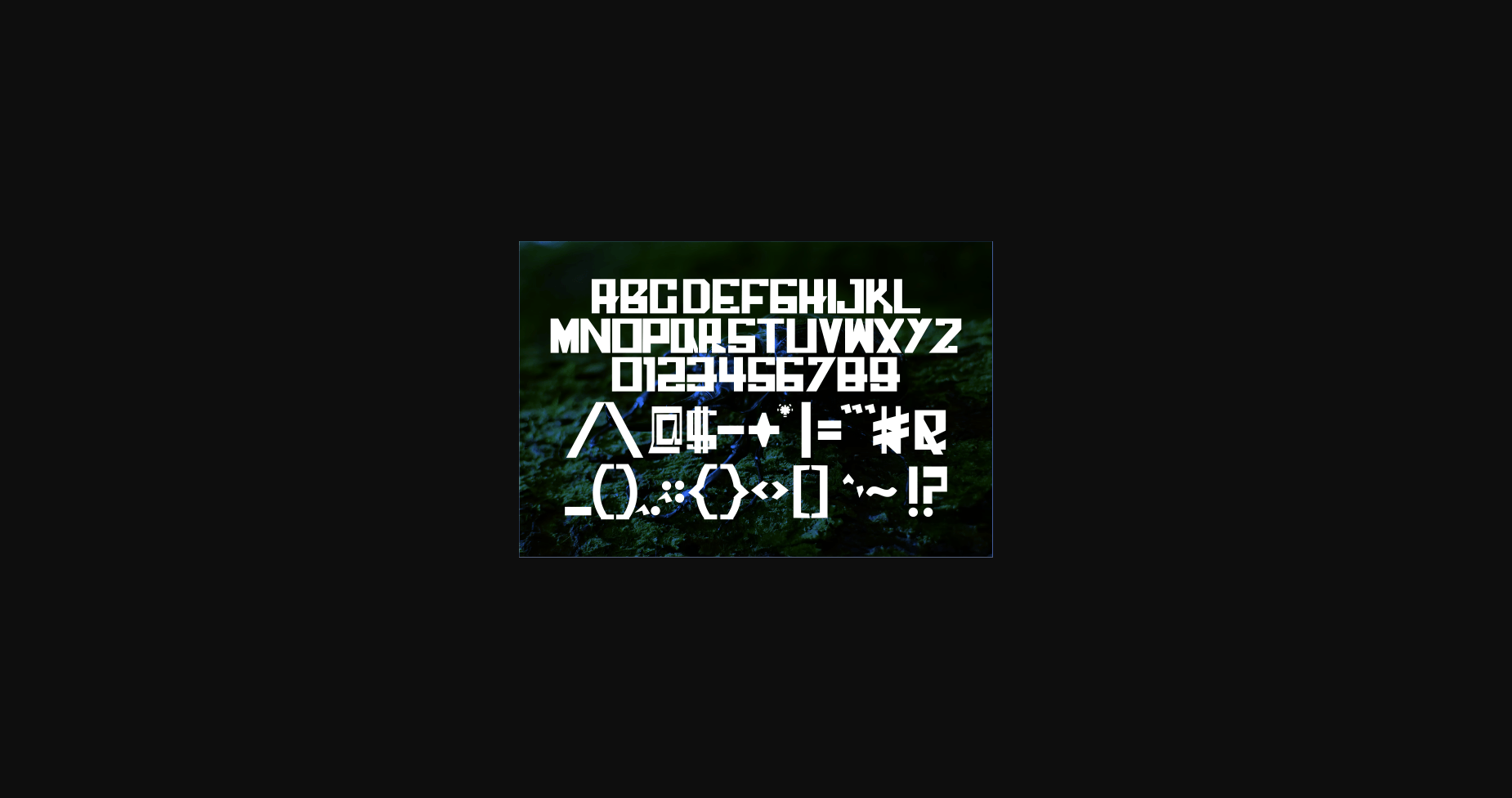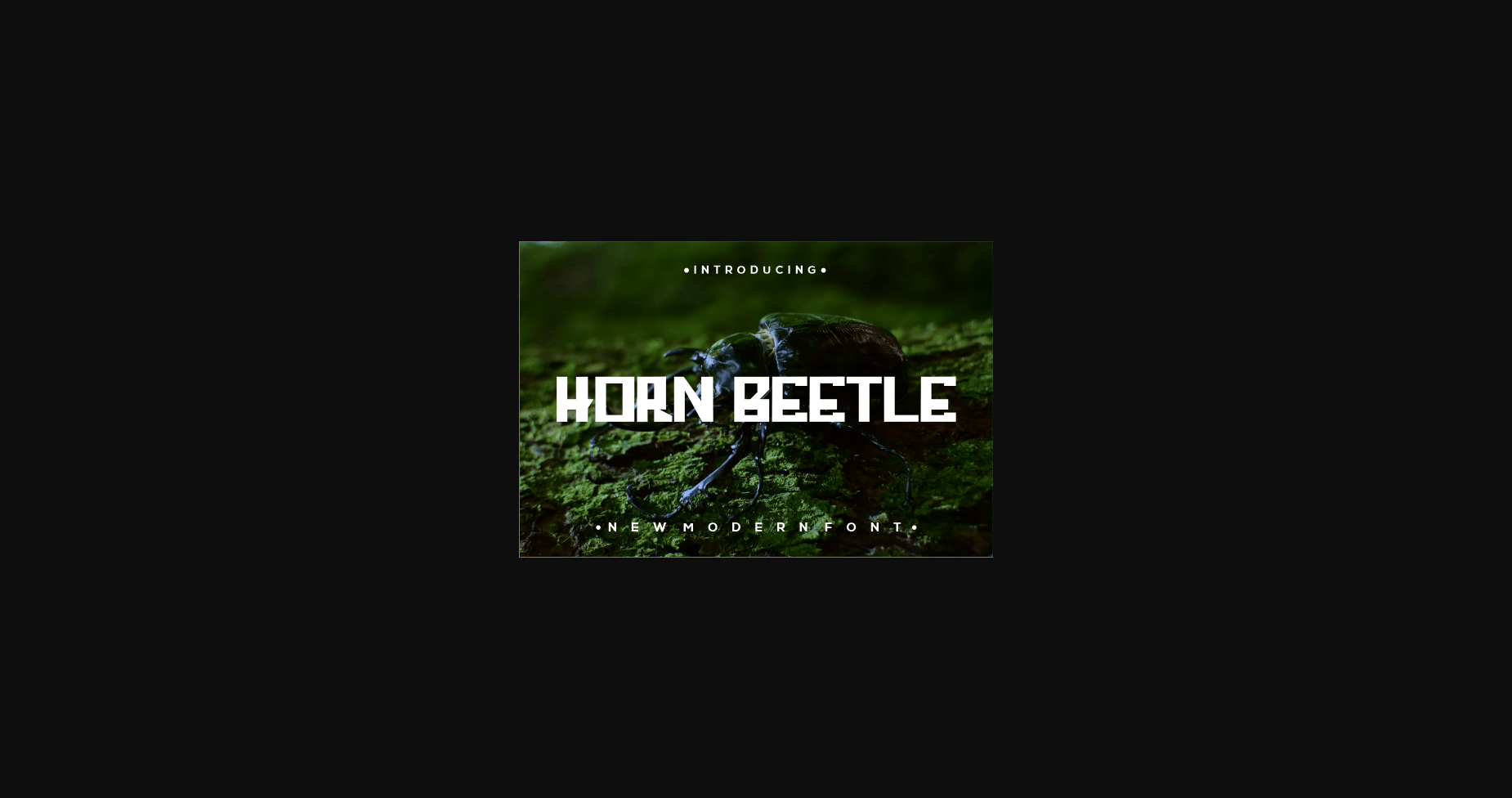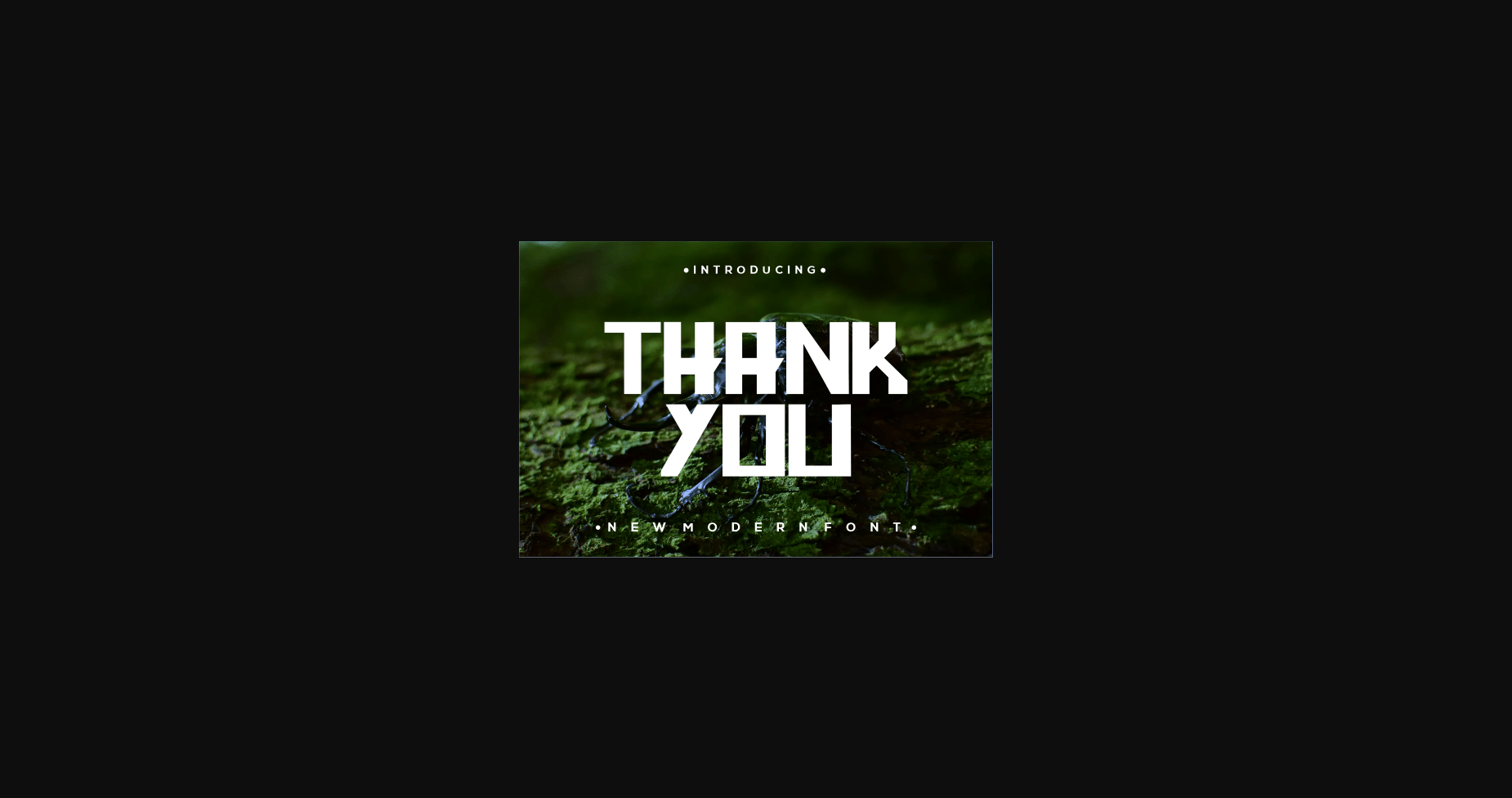
HomeSans Serif FontsHorn Beetle Font Sans Serif Fonts Horn Beetle Font FacebookXPinterestWhatsApp 1 of 5 ... Horn Beetle Font Poster 2... Horn Beetle Font Poster 3... Horn Beetle Font Poster 4... Horn Beetle Font Poster 5... About Horn Beetle Font Horn Beetle is a modern and trendy sans serif font. Incredibly versatile, this font suites a wide pool of design ideas. DOWNLOAD NOW People also explored Gomesh Font Pranksy AOE Sikatabis Font Slipknot Font Sunflower Font Angela Font Easter Love Font Quote Sheiloria 288 0 TagsHorn Beetle Font Previous articleHey Holiday FontNext articleGrandiose Font LEAVE A REPLY Cancel reply Comment: Please enter your comment! Name:* Please enter your name here Email:* You have entered an incorrect email address! Please enter your email address here Website: Save my name, email, and website in this browser for the next time I comment. Personal Use Free Hatia Script Personal Use Free Read more about this font Alnair Star Personal Use Free Read more about this font Bethania Personal Use Free Read more about this font Po Beef Personal Use Free Read more about this font BLOG Transform Your Website: Elevate Your Typography with 7 Best Web Font Generators Are you ready to transform your website's typography from ordinary to extraordinary? Great! Today, we're diving into the world of web font generators, which... To increase your work productivity, choose the most readable fonts. Exploring Font Trends How to Install and Use Fonts on Windows, macOS, and Web Projects